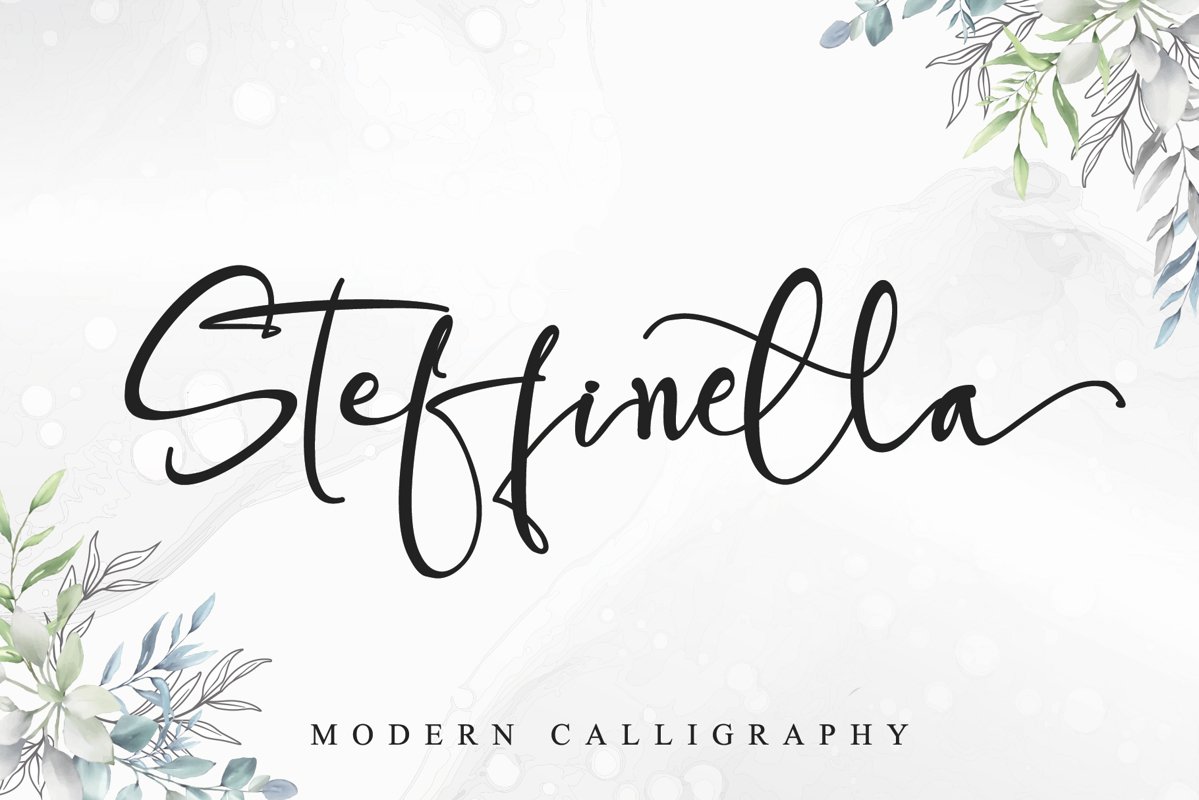
Steffinella
Steffinella is a sweet, soft hand-lettered handwritten font.
Fall in love with its authentic feel and use it to create gorgeous wedding
invitations, beautiful stationary art, eye-catching social media posts, cute
greeting cards, apparel, and logo. This font is PUA encoded which means you can
access all of the cute glyphs and swashes with ease! It also features a wealth
of special features including alternate glyphs and ligatures.